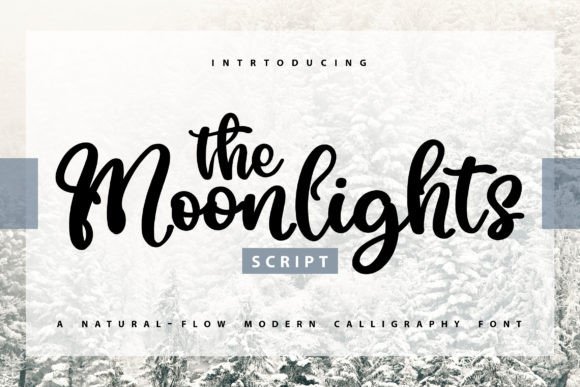
Embrace Elegance with The Moonlights Font
Practical Applications for Modern Designers
* Social Media Graphics: Create eye-catching quotes, story highlights, and headers that stop the scroll. The handwritten style feels native to platforms like Instagram and Pinterest. * Web Design and UI: Use it for hero section call-to-actions or navigation accents to soften the user experience and guide the eye with a personal touch. * Packaging Design: Ideal for artisanal products, cosmetics, or food items where the packaging needs to convey quality and care. * Wedding Stationery and Invitations: The romantic nature of the script makes it perfect for event branding, from digital invites to menus and signage. * Editorial Design: Break up blocks of text in magazines or blogs by using The Moonlights for pull quotes or section headers.Tips for Implementation and Usability
* Color Palette Compatibility: Pair the font with soft, pastel colors for a romantic feel, or use high-contrast dark backgrounds to make the white script pop for a modern aesthetic. * Spacing and Kerning: Handwritten fonts often require manual adjustment of letter spacing (kerning) to ensure legibility. Ensure letters do not overlap in confusing ways. * Visual Hierarchy: